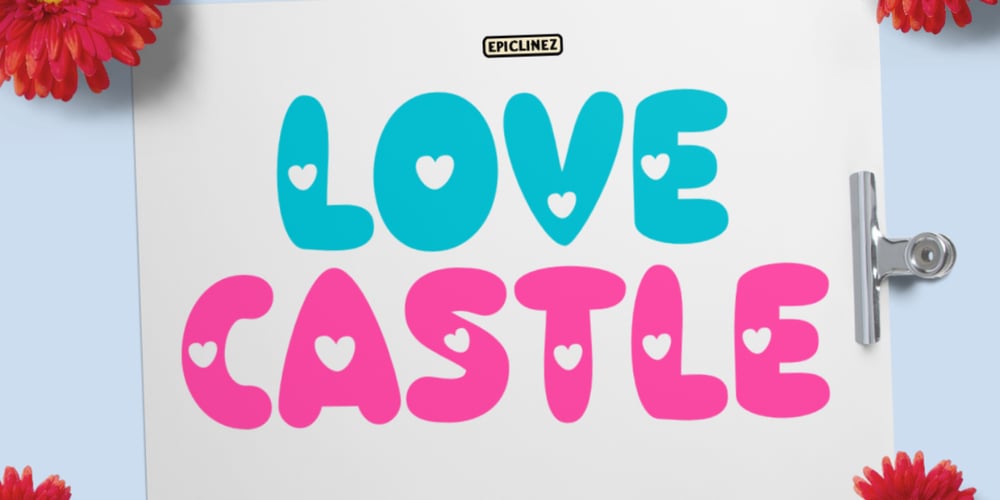
Love Castle
Love Castle font
Love Castle Font Family was designed by Aldy Sidik and published by Epiclinez. Love Castle contains 1 styles and family package options. Love Castle is a fun and playful display font. This cute font will look truly outstanding in a wide of contexts from letterheads and titles, to logos.